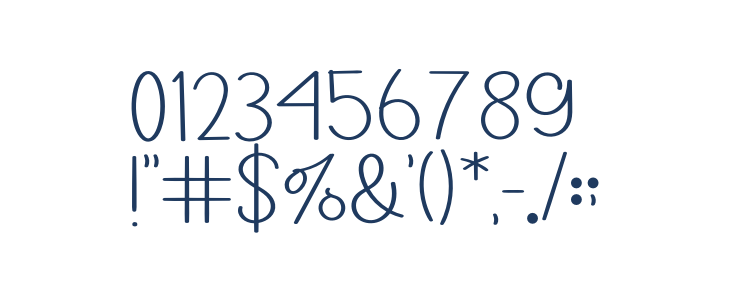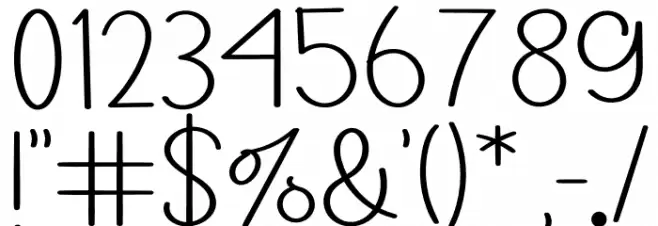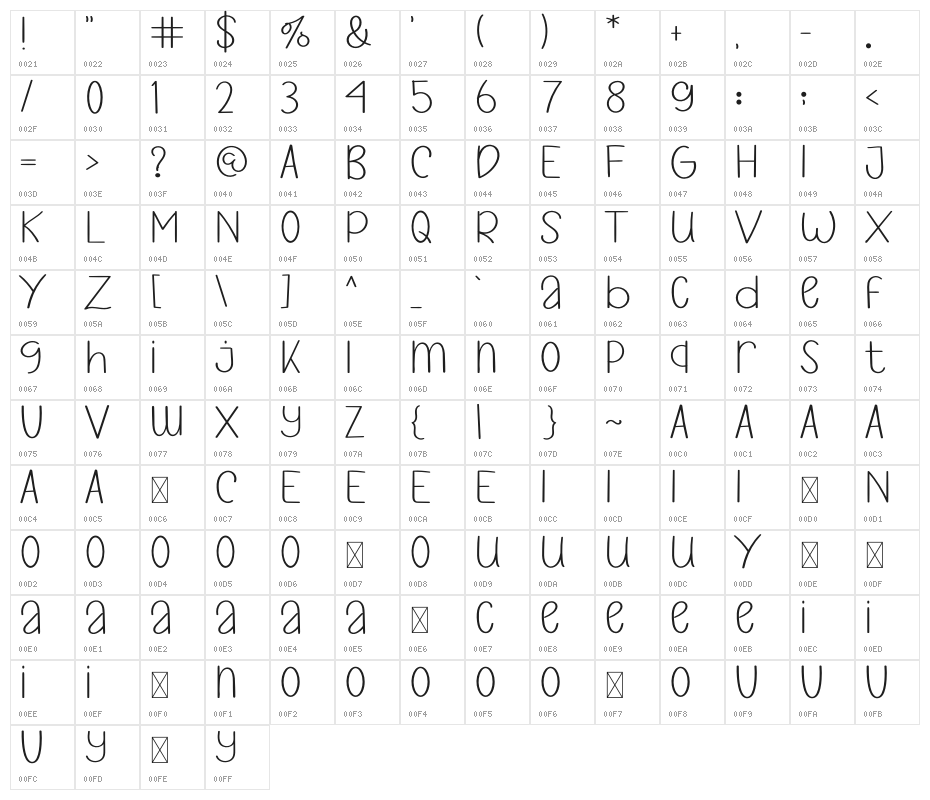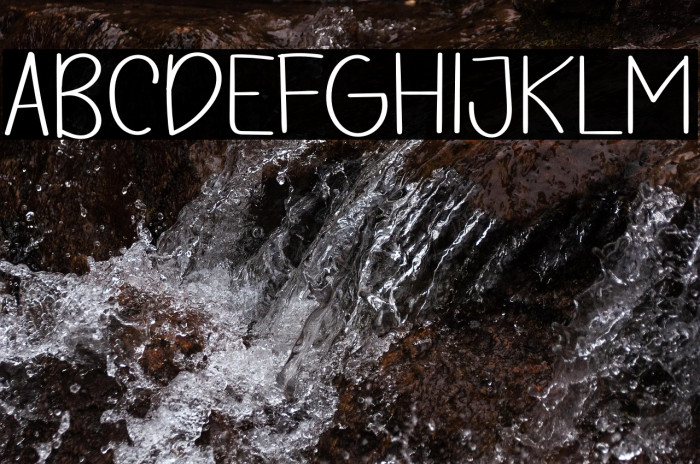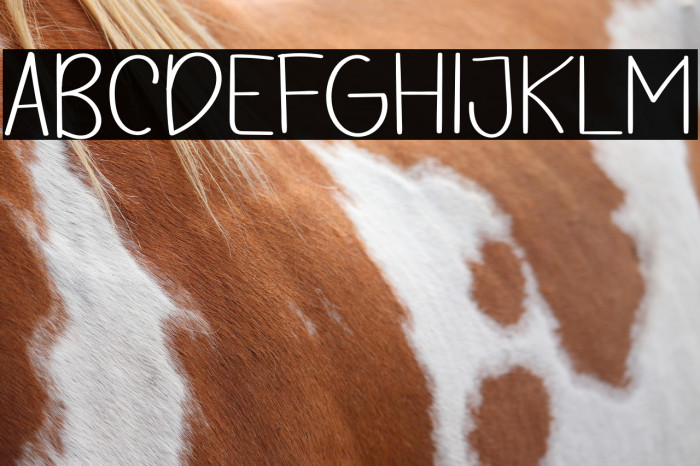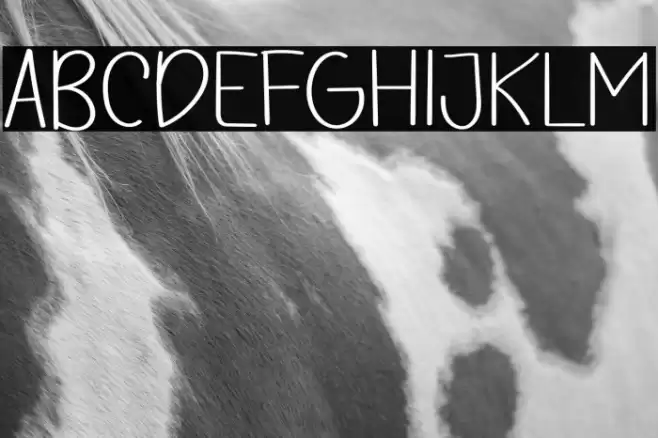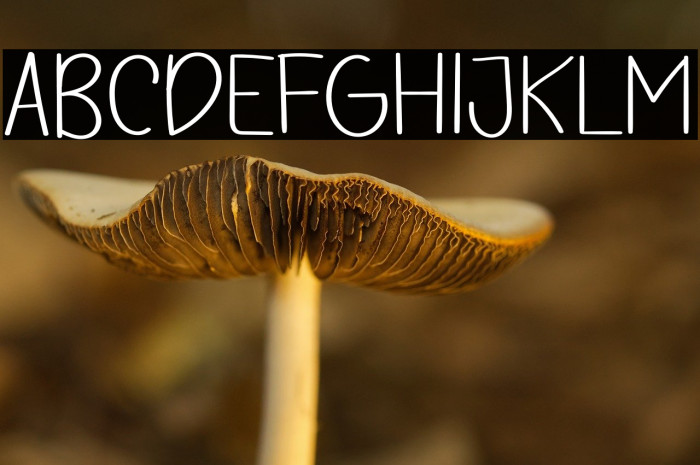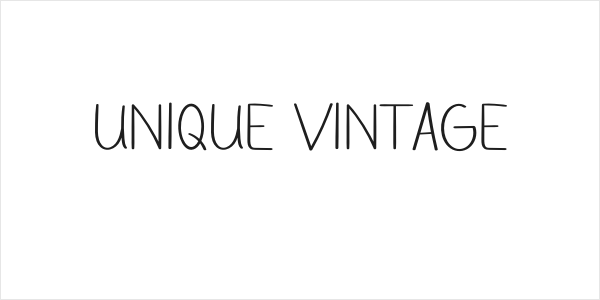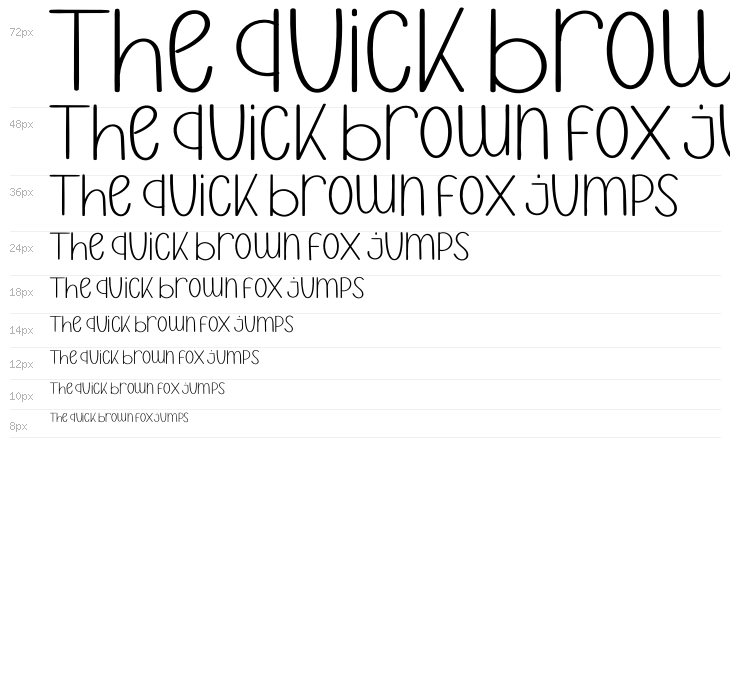
UNIQUE VINTAGE Font
UNIQUE VINTAGE Description
This font features a playful and whimsical style with a handwritten appearance. The characters are tall and narrow, with a consistent stroke width that gives it a clean and modern look. The uppercase letters are slightly taller than the lowercase, maintaining a uniform height across the alphabet. The numbers are well-proportioned and match the overall aesthetic of the letters. Special characters are included, adding versatility to the font. The overall design is casual and friendly, making it suitable for a variety of creative projects.